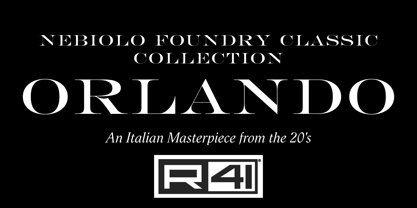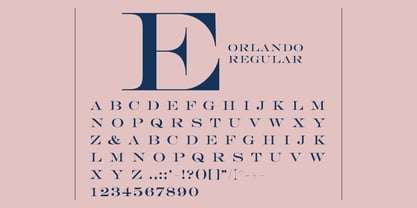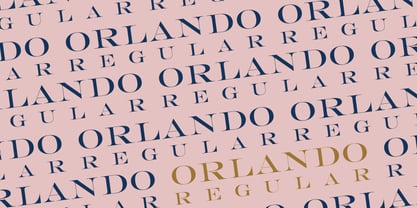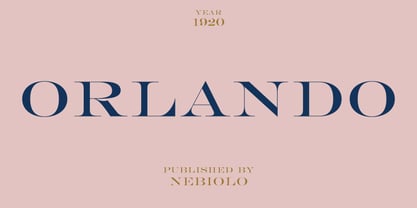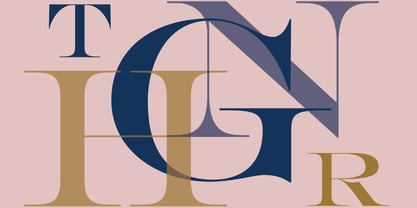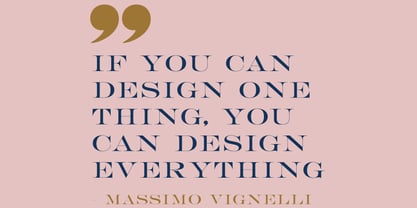
R41 Orlando
The R41 Orlando Font Family was designed by Ariel Brandolini, Daniele Medina and published by Reber R41. R41 Orlando contains 1 styles. More about this family
Originally issued by Nebiolo in 1920, Orlando is a transitional style of display lettering that captures the essence of 19th-century design. This typeface is ideal for projects where classical-inspired effects are desired, yet a more modern spirit is needed as well. With its crisp and elegant lines, R41’s digital revival of Orlando provides a stately form suitable for headlines, posters, packaging, advertisements, and various other applications.